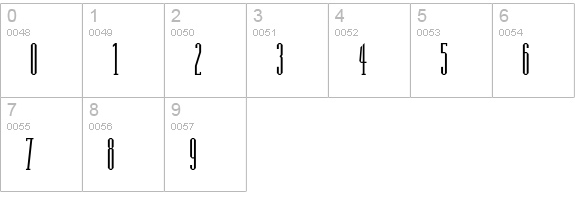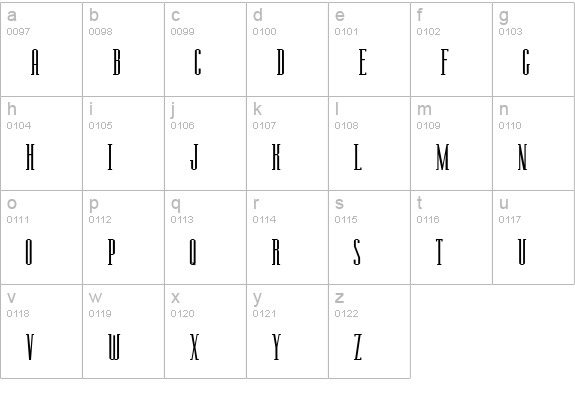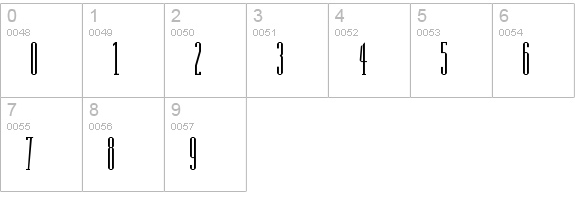
RSManzanita font is a modern and elegant typeface that exudes sophistication and style. With its sleek lines and unique design, this font is perfect for a wide range of projects, from branding to advertising to editorial design. The versatility of RSManzanita font makes it a must-have for any designer looking to add a touch of class to their work. The best part? RSManzanita font is completely free to download at FontsMarket.com. This means you can access this amazing font without having to spend a dime. Don't miss out on the opportunity to elevate your designs with RSManzanita font, available for free download now at FontsMarket.com.